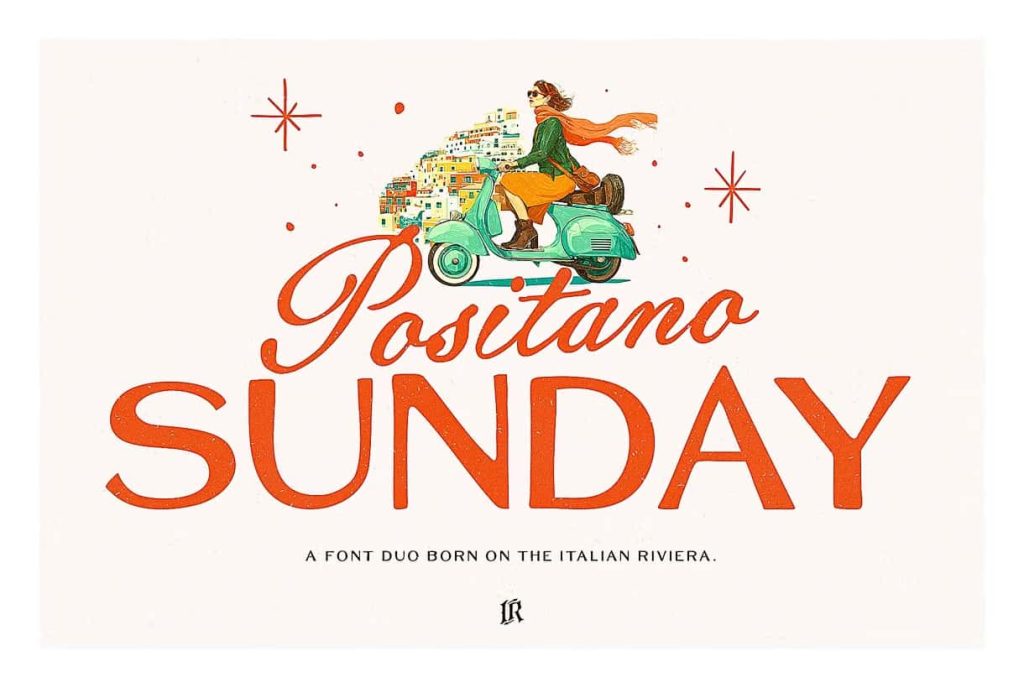
Positano Sunday Font Trio: Elegance and Playful Charm Inspired by the Italian Riviera
Positano Sunday Font Trio captures the effortless beauty and sophistication of the Italian Riviera. This unique collection of three typefaces blends timeless elegance with playful character, evoking the charm of sunlit Mediterranean cafés, coastal markets, and vintage seaside posters. Designed for modern creatives who love personality and refinement in their typography, Positano Sunday offers endless possibilities for stylish and expressive design.
A Font Set Inspired by the Italian Coast
Drawing inspiration from the sunny atmosphere of the Amalfi Coast, Positano Sunday Font Trio reflects the warmth, artistry, and relaxed luxury of Italian design culture. Each typeface feels like a stroll through the vibrant streets of Positano — full of life, color, and effortless style. With delicate curves, balanced proportions, and a touch of vintage flair, this trio captures the romance and nostalgia of mid-century travel posters while remaining fresh and relevant for modern branding.
Three Fonts, Infinite Creative Possibilities
The Positano Sunday Font Trio includes three complementary styles designed to work harmoniously together. Whether used individually or layered in combination, each font brings a distinct personality to your designs. The collection’s balance between elegance and playfulness makes it versatile for a wide range of creative projects. Use one for refined headlines, another for charming taglines, and the third for subtle text accents — each style enhances the others to form a cohesive and beautiful visual system.
Perfect for Branding and Modern Design
Positano Sunday Font Trio is a perfect match for brand identity and lifestyle design. Its graceful letterforms and timeless charm elevate logos, packaging, and editorial layouts with a Mediterranean touch. Imagine it on a boutique café menu, a wine label, a skincare brand, or a travel poster — the font instantly brings sophistication and personality to every application. Its handcrafted quality and balanced rhythm make it suitable for both luxury and casual aesthetics, ensuring that your brand feels distinctive and memorable.
Ideal for Social Media and Visual Storytelling
In today’s visual world, social media design demands fonts that stand out and tell a story. The Positano Sunday Font Trio does exactly that. Its elegant yet approachable character makes it ideal for Instagram posts, Pinterest graphics, and digital advertising campaigns. Whether you’re creating travel-inspired visuals, lifestyle content, or editorial layouts, this typeface set brings an authentic warmth and storytelling charm to your work.
Vintage Charm Meets Modern Versatility
While inspired by the elegance of vintage Mediterranean posters, Positano Sunday has been refined for contemporary use. The smooth lines, consistent structure, and carefully crafted letterforms ensure clarity across both print and digital platforms. It performs beautifully in large-scale headings as well as in smaller text applications. This versatility makes it a reliable choice for designers seeking a font family that merges nostalgic charm with professional polish.
Features That Enhance Creativity
Each font in the Positano Sunday collection has been designed to encourage creative experimentation. The trio includes uppercase and lowercase variations, stylistic alternates, ligatures, and multilingual support. These features provide the flexibility to customize your typography for a unique look every time. Whether you’re designing branding for a local business or crafting promotional materials for a luxury product, Positano Sunday helps your message shine with sophistication and heart.
Why Designers Love Positano Sunday Font Trio
- Inspired by Italian Elegance: Reflects the art, culture, and sunshine of the Mediterranean Riviera.
- Three Complementary Styles: Perfectly balanced fonts that pair beautifully together.
- Highly Versatile: Ideal for branding, packaging, social media, and editorial design.
- Vintage Yet Modern: Classic design sensibility adapted for contemporary aesthetics.
- Easy to Customize: Includes alternates, ligatures, and multilingual support.
Positano Sunday Font Trio invites designers to infuse their work with warmth, joy, and Italian-inspired sophistication. Every letter feels alive with the sunlit charm of the Riviera — elegant yet relaxed, timeless yet current. It’s the perfect companion for anyone who wants to add character and emotion to their visual storytelling.
Bring Mediterranean Magic to Your Design Projects
Whether you’re crafting a brand identity, designing packaging, or curating content for social media, the Positano Sunday Font Trio will transform your project into something truly memorable. With its balance of artistry and playfulness, this collection embodies everything beautiful about coastal design — freedom, creativity, and effortless style. Bring a touch of the Italian Riviera to your next design and let your typography shine with warmth, elegance, and personality.